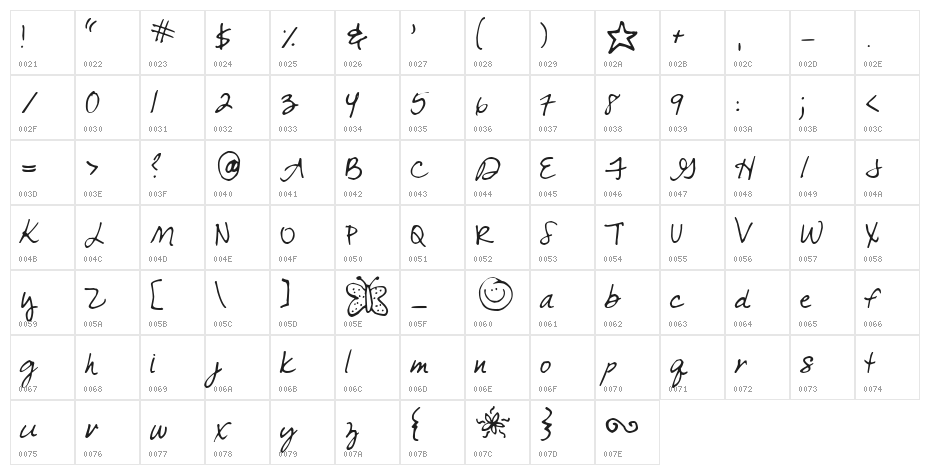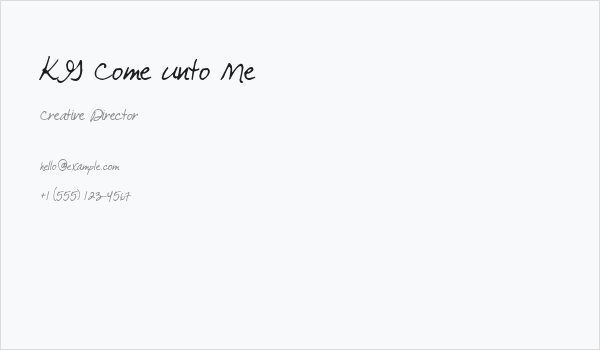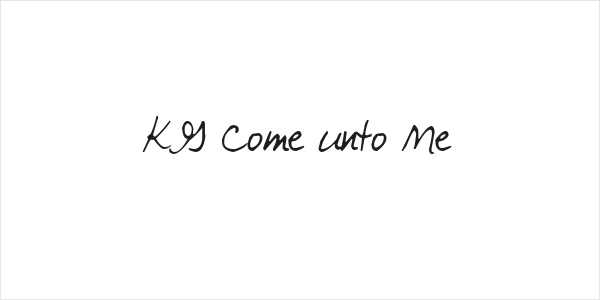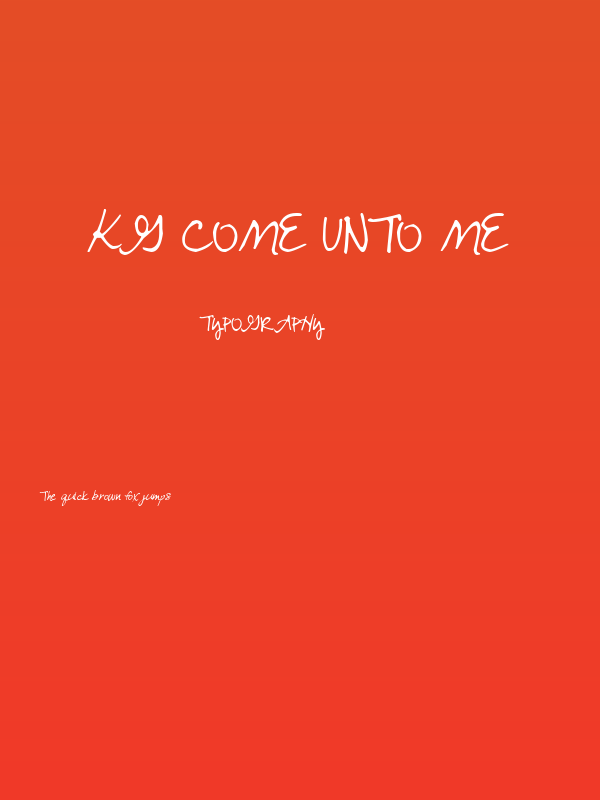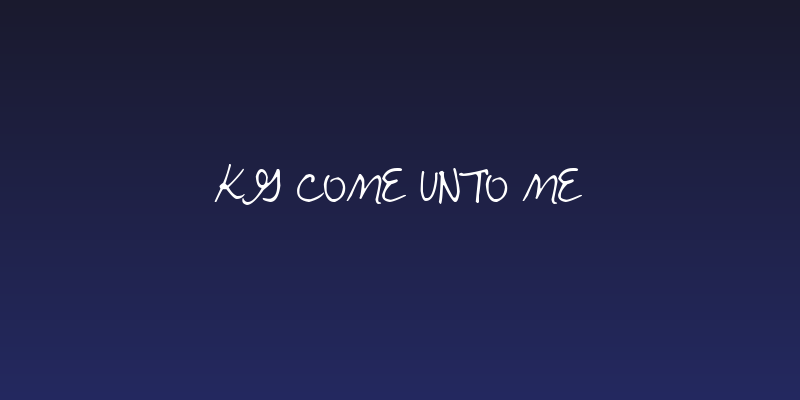
KG Come unto Me Font
KG Come unto Me Description
This font features a playful and casual handwritten style, characterized by its fluid and dynamic strokes. The letters have a natural, flowing appearance, with a slight slant that gives it a relaxed and informal feel. The uppercase and lowercase letters are well-balanced, maintaining consistency in their design. The numerals and special characters complement the overall style, adding to its versatility. This font's organic and approachable look makes it suitable for a variety of creative projects.
| Proposed Projects | Ideal for greeting cards, invitations, personal branding, and creative projects that require a friendly and informal touch. |